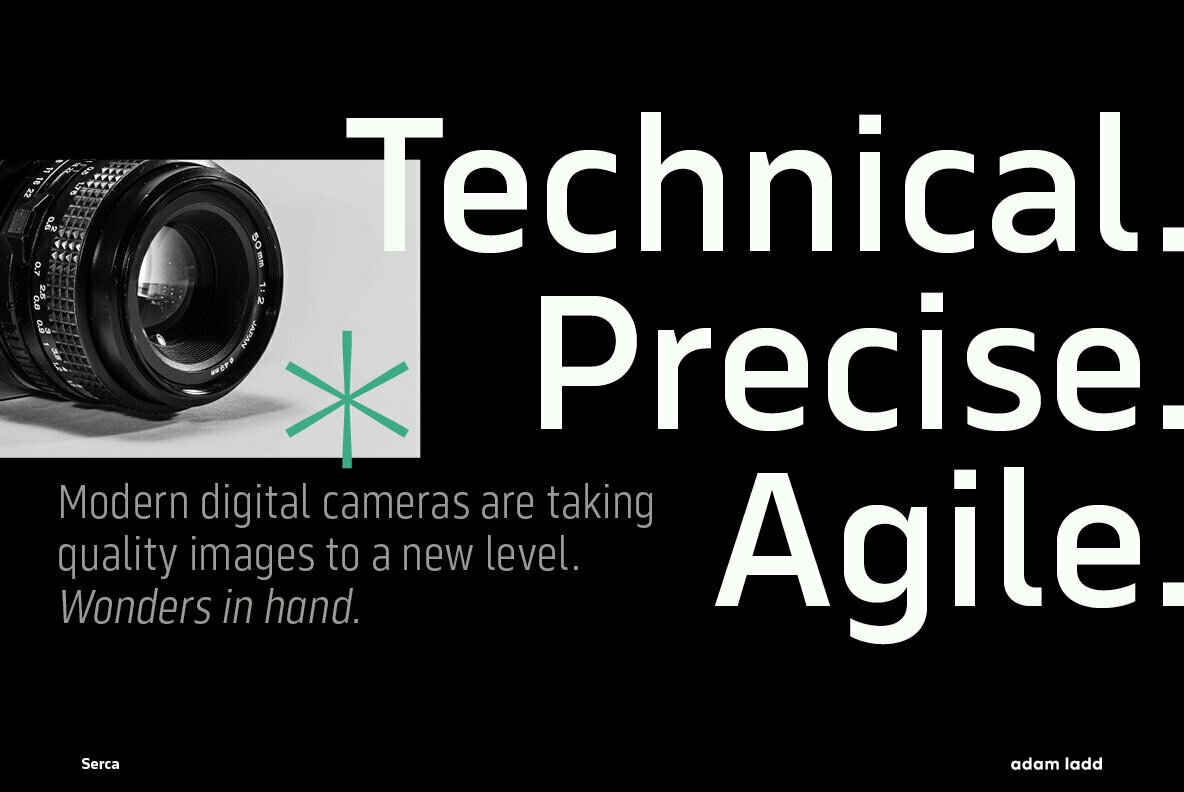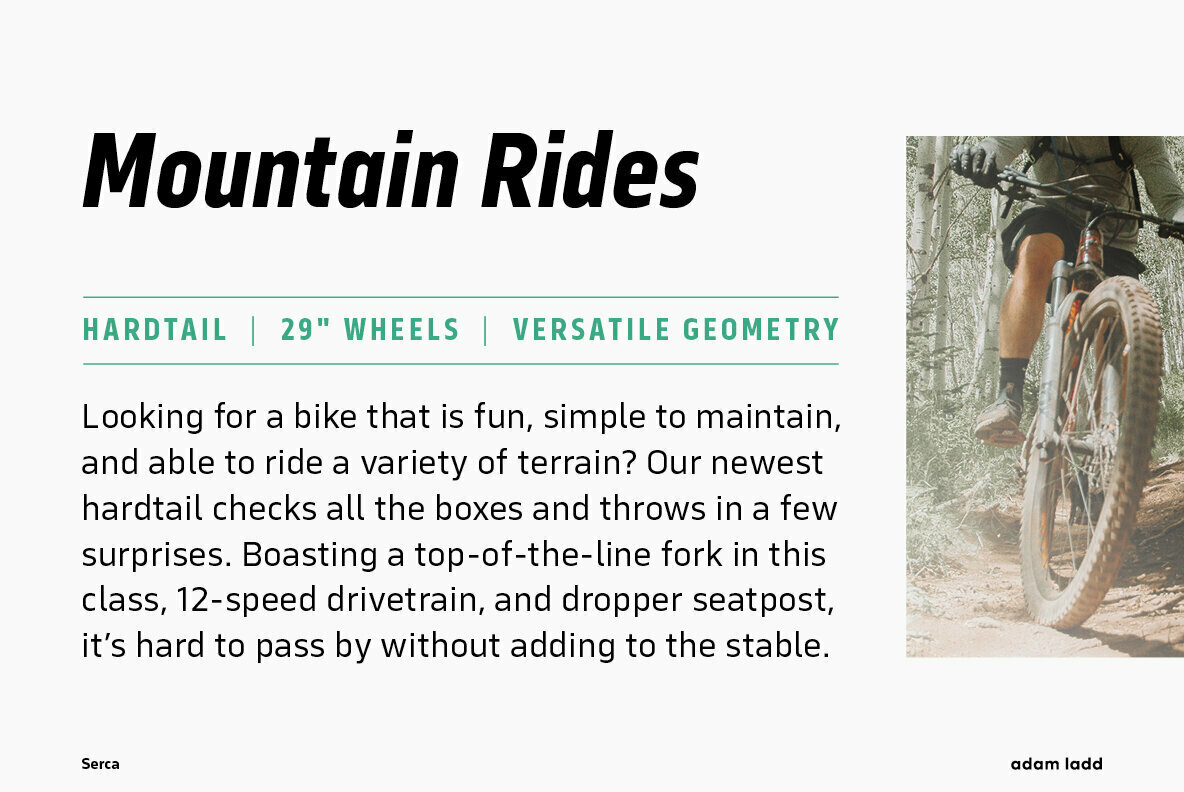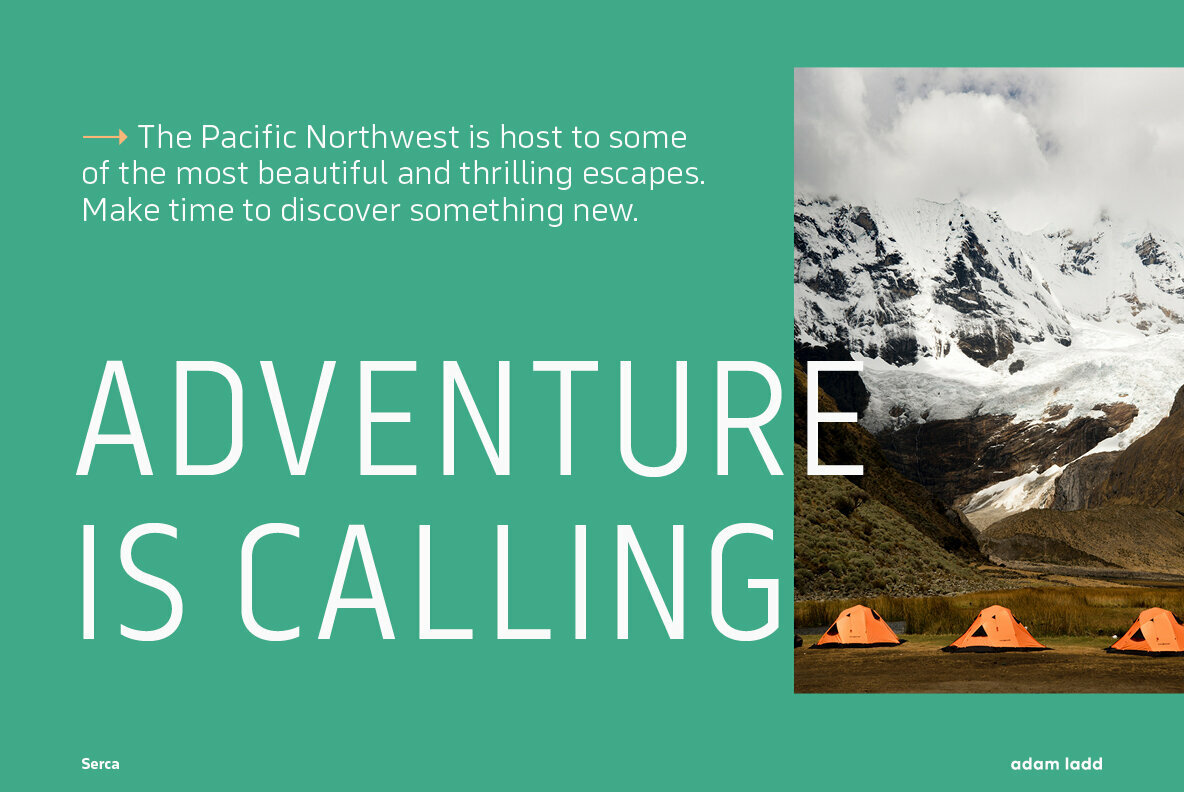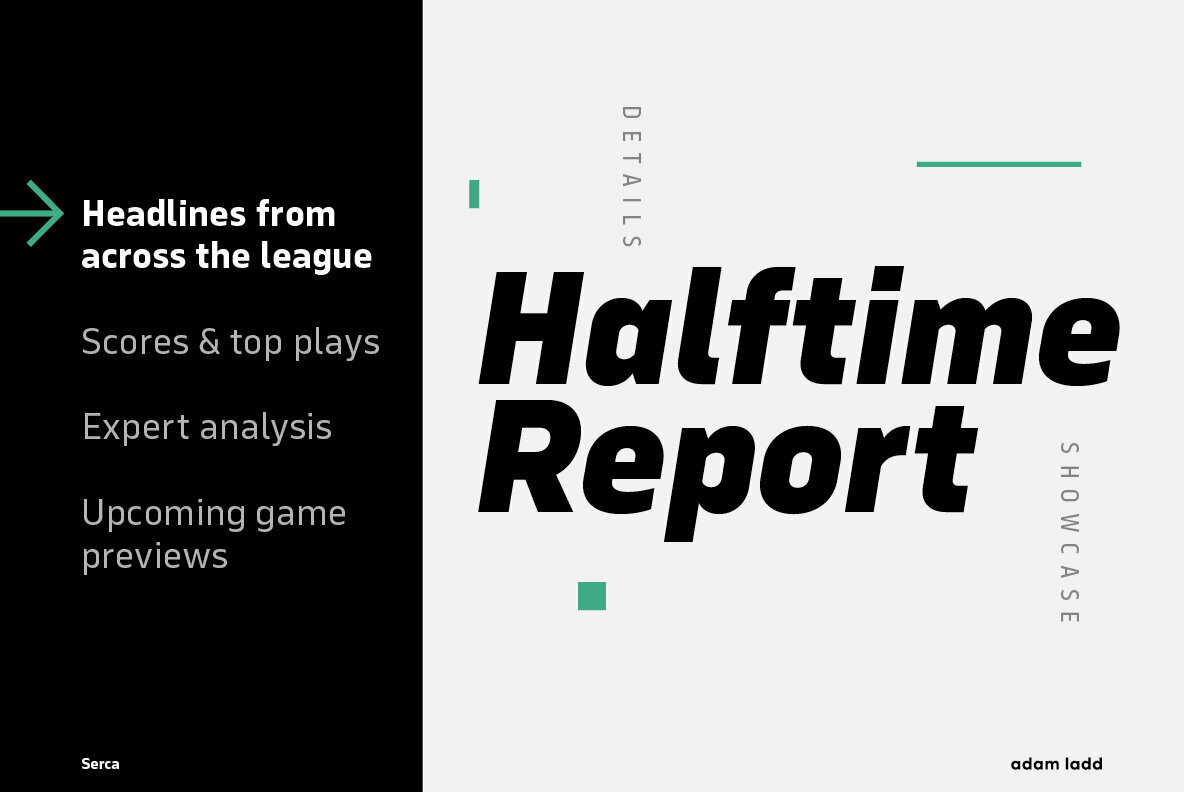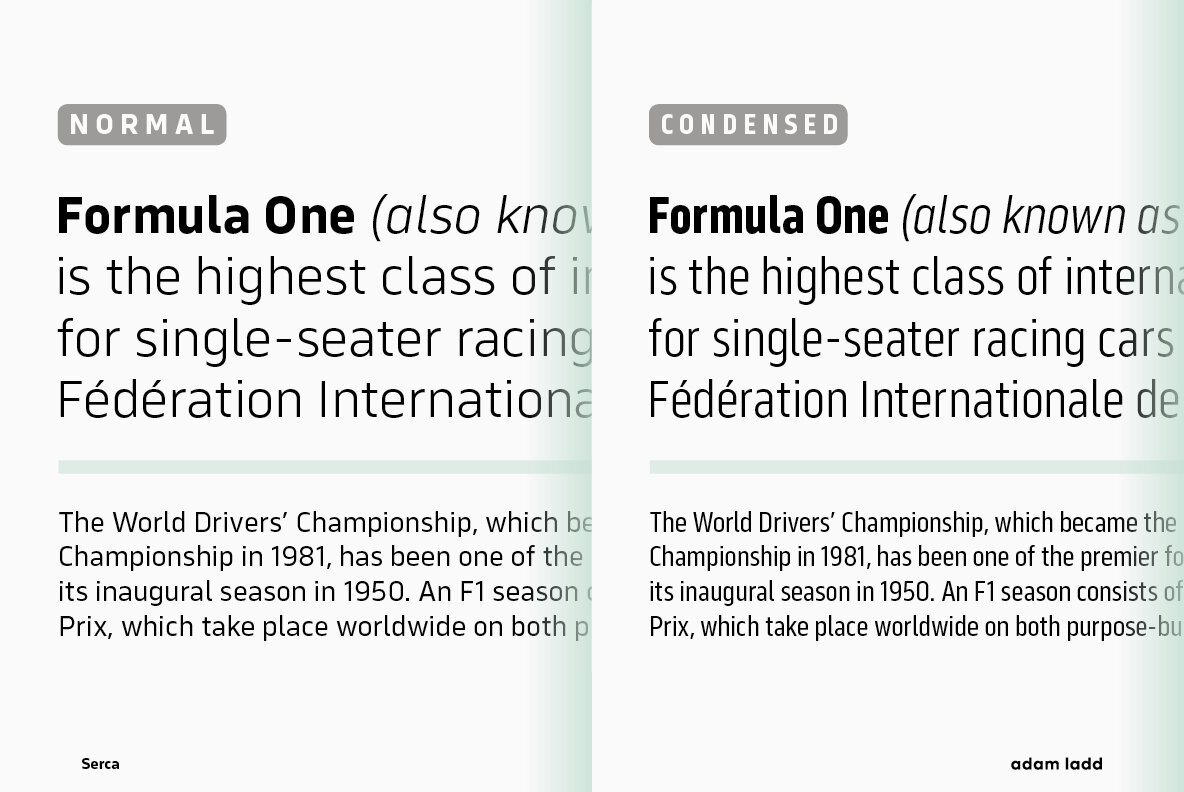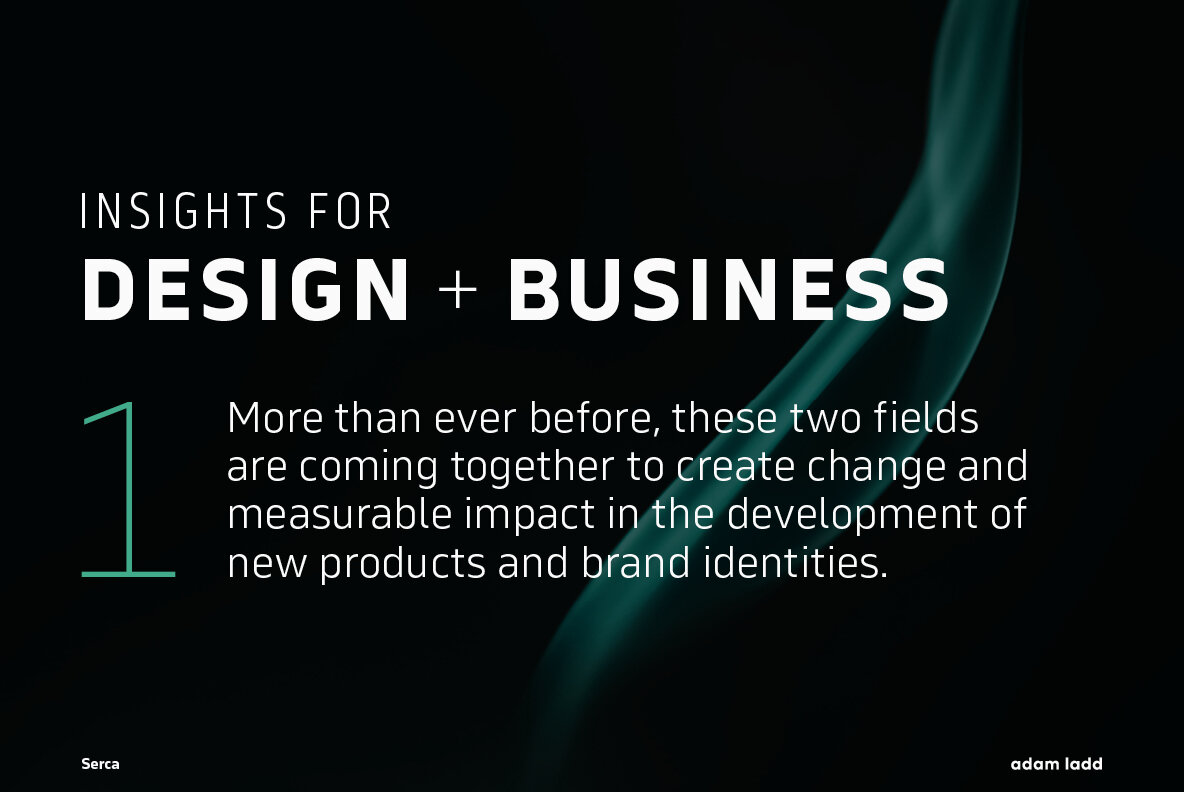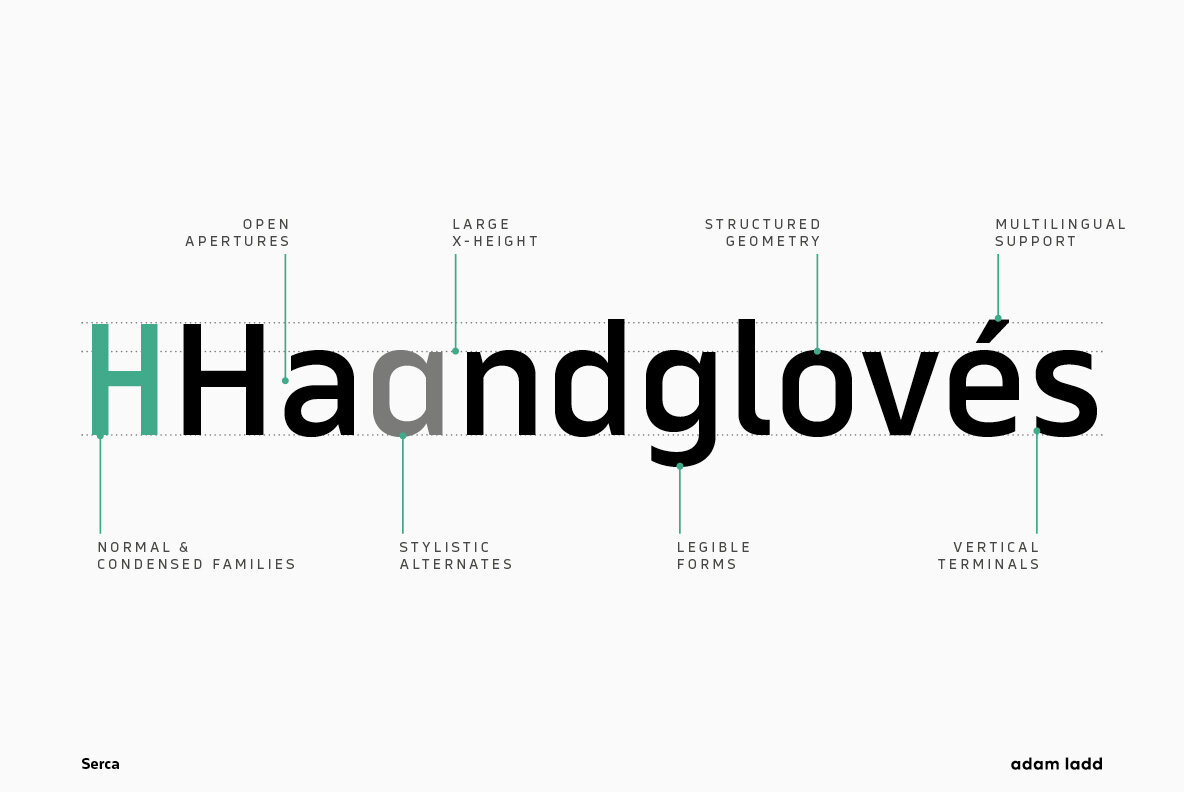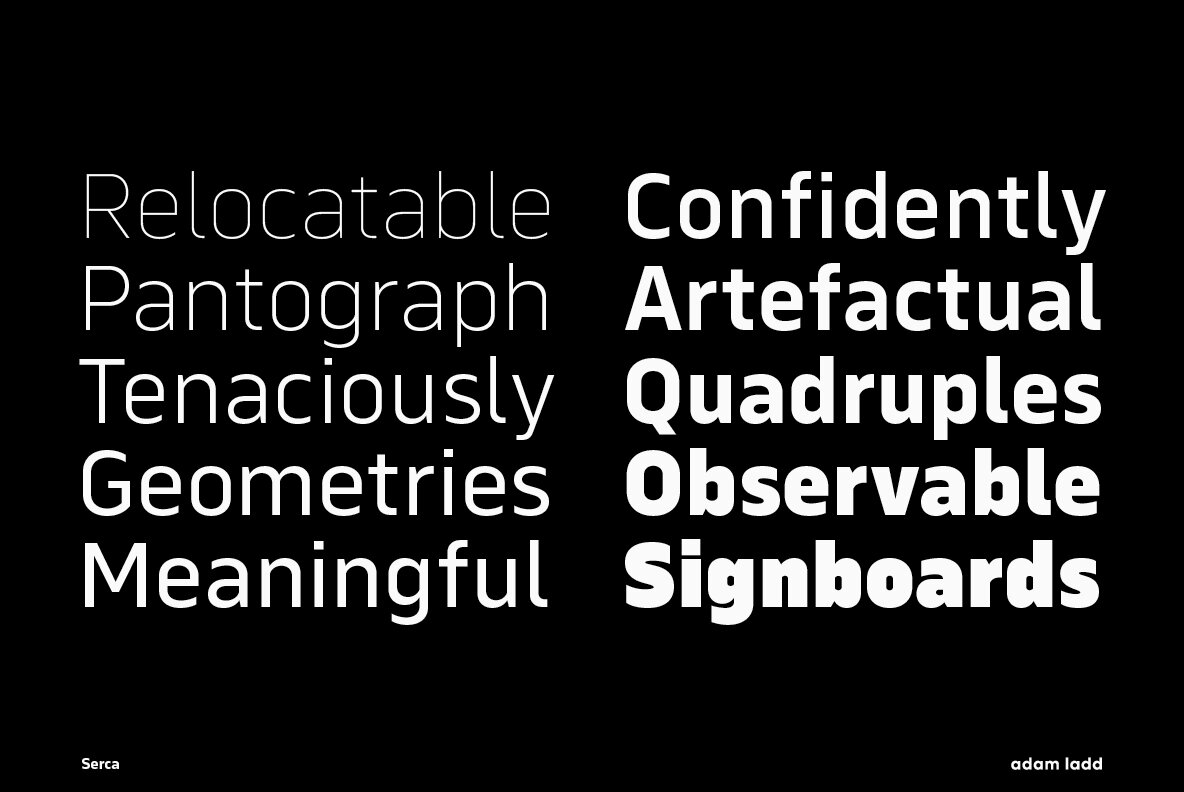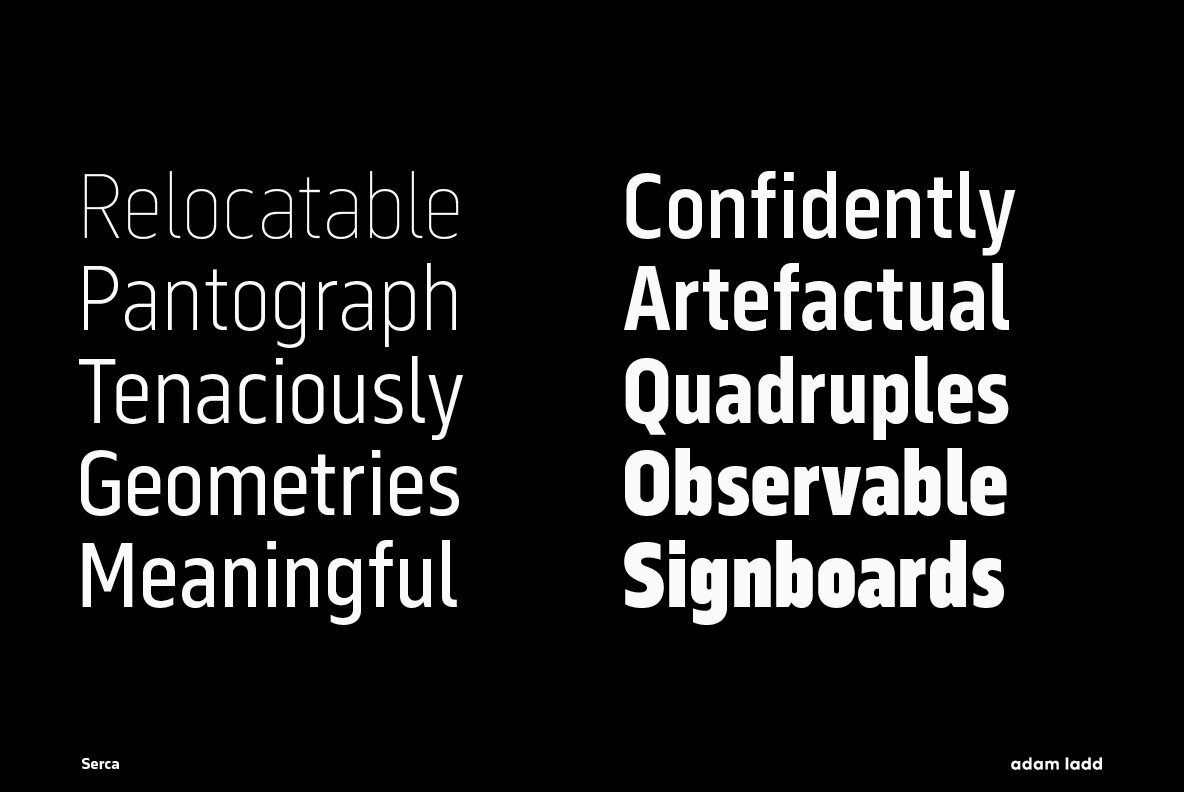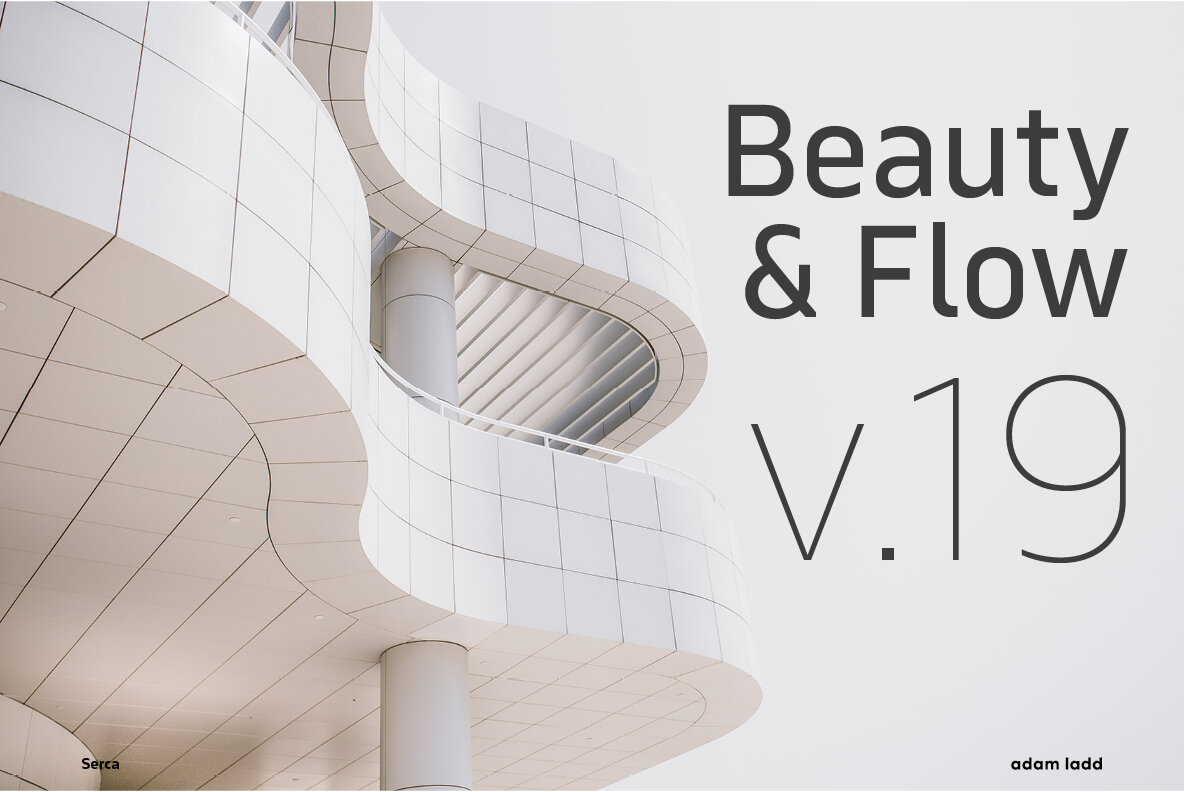
Serca Font
Serca is a structured geometric sans serif font family with normal and condensed proportions. It is professional and precise, open and legible. The modern, clean design lends itself to being a workhorse for a variety of applications—branding, advertising, websites, mobile apps, logos, magazines, etc.—able to be used in both small body text and large headlines alike.
The design characteristics are made up of vertical terminals, open apertures, a large x-height, and angled stems where curves join. Pair the normal and condensed styles together for more typographic interest or space-saving considerations. The vast range of weights—Thin through Black with italics—gives plenty of options to choose from (also includes a Text weight for a slightly darker appearance than Regular).
Serca’s features include:
• Normal and Condensed families (40 total fonts)
• Stylistic alternates
• Case-sensitive punctuation for All Caps
• Arrow icons and symbols
• Fractions, numerators, denominators
• Superscript, subscript
• Tabular figures
With over 600 glyphs, this font has extensive multilingual Latin language support for Western, Central, and South Eastern European.